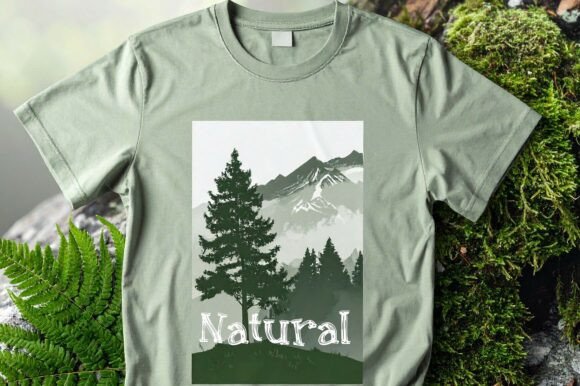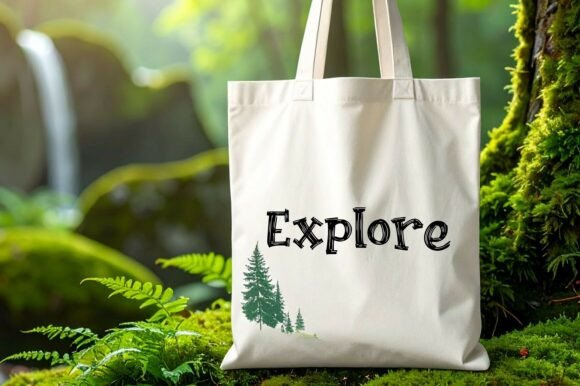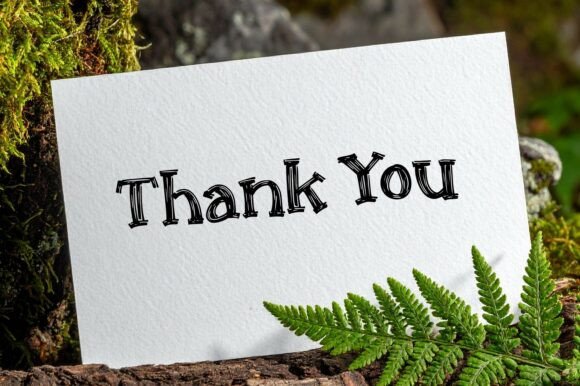
Introduction to Cagar Alam Font
Introducing “Cagar Alam,” a robust yet elegant handwritten display font that encapsulates the majestic charm of pristine wilderness and serene, untouched landscapes.
This typeface is derived from the serene yet striking flow of the natural world, imbuing your designs with an authentic, rugged, and daring personality The firm and unique lettering of “Cagar Alam” ignites a sense of dependability and deep-seated association with the great outdoors, making it perfect for themes revolving around exploration, conservation, and the inherent beauty of nature.
Key Features of Cagar Alam Font